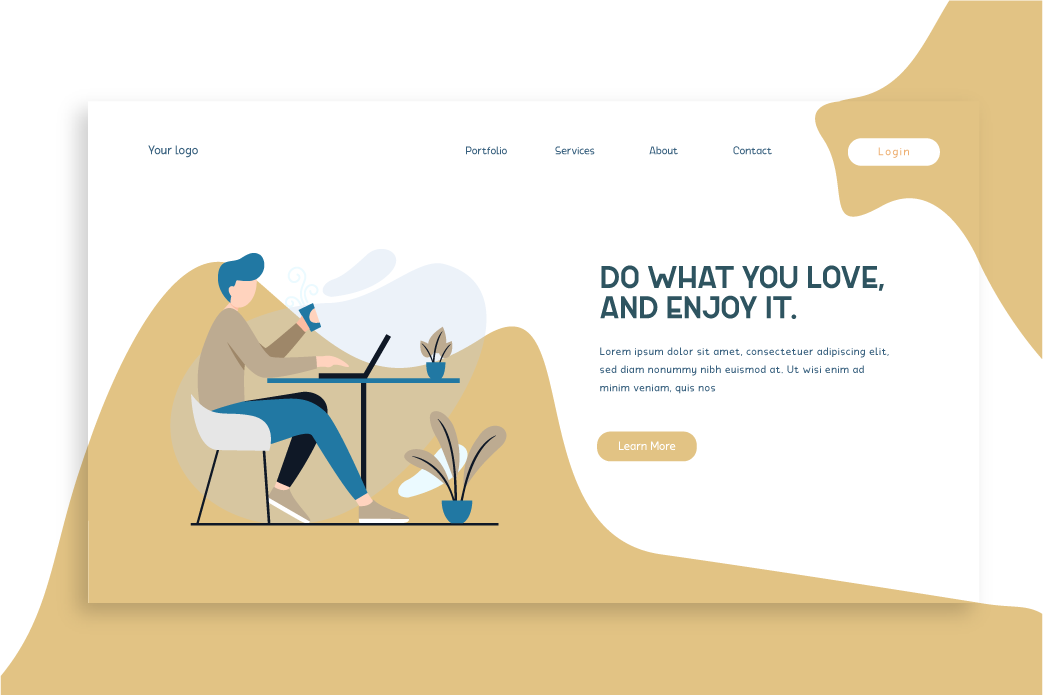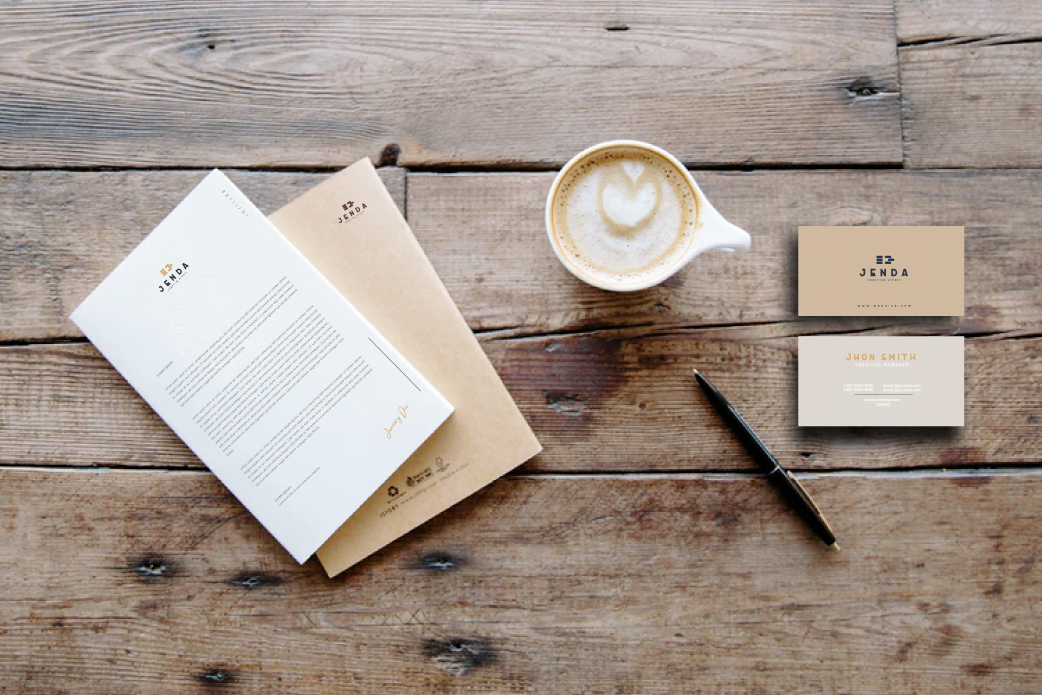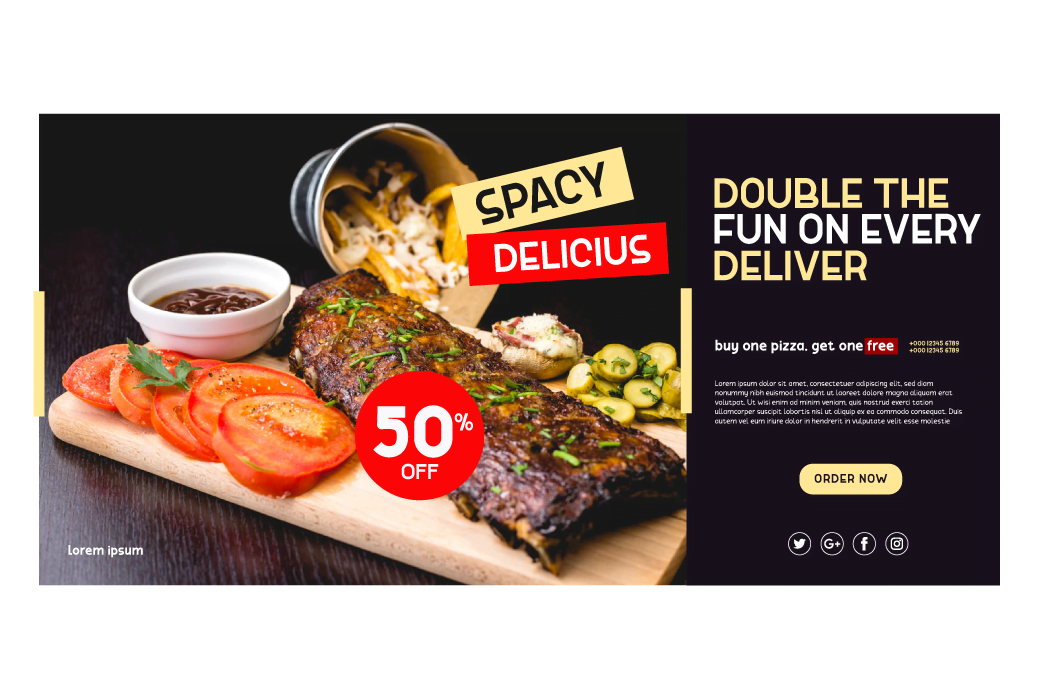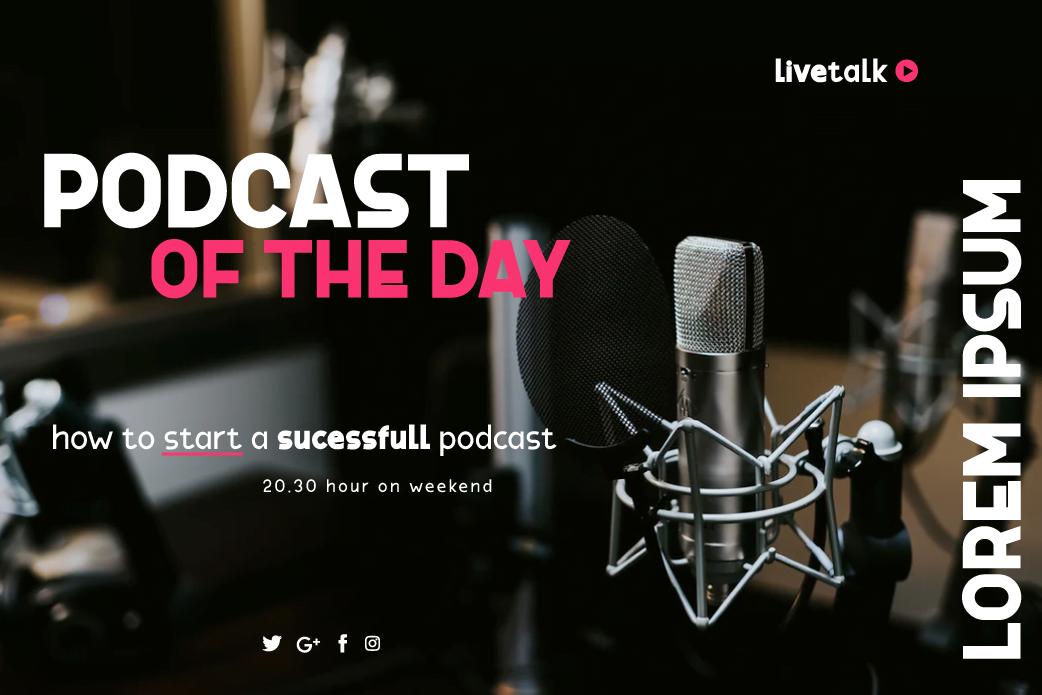
Abesif
Introducing Abesif sans serif font.
This font is stretched from the normal theme, it is boring, while different, it seems strange.
from there we design the appearance of this font that is not normal so that it is not boring and we display it differently but not look strange. so if you use this font it will look different from the others but it doesn’t look strange because it has a normal design. so that it creates an impression that is easy for each of your audience to remember when they first see your project.
This font is very suitable as text with displays for various kinds of branding, advertisements, posters, banners, packaging, news headlines, magazines, websites, logo design, banners, social media design, and of course you can use a lot more.